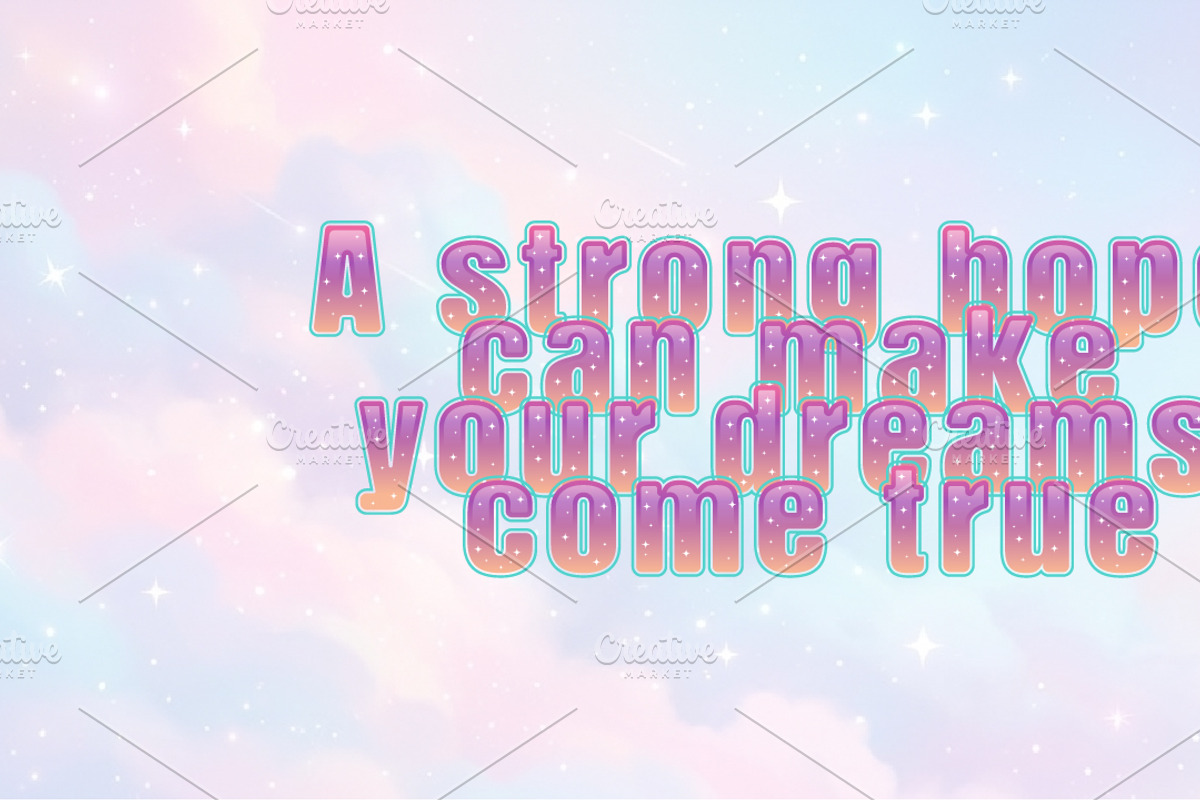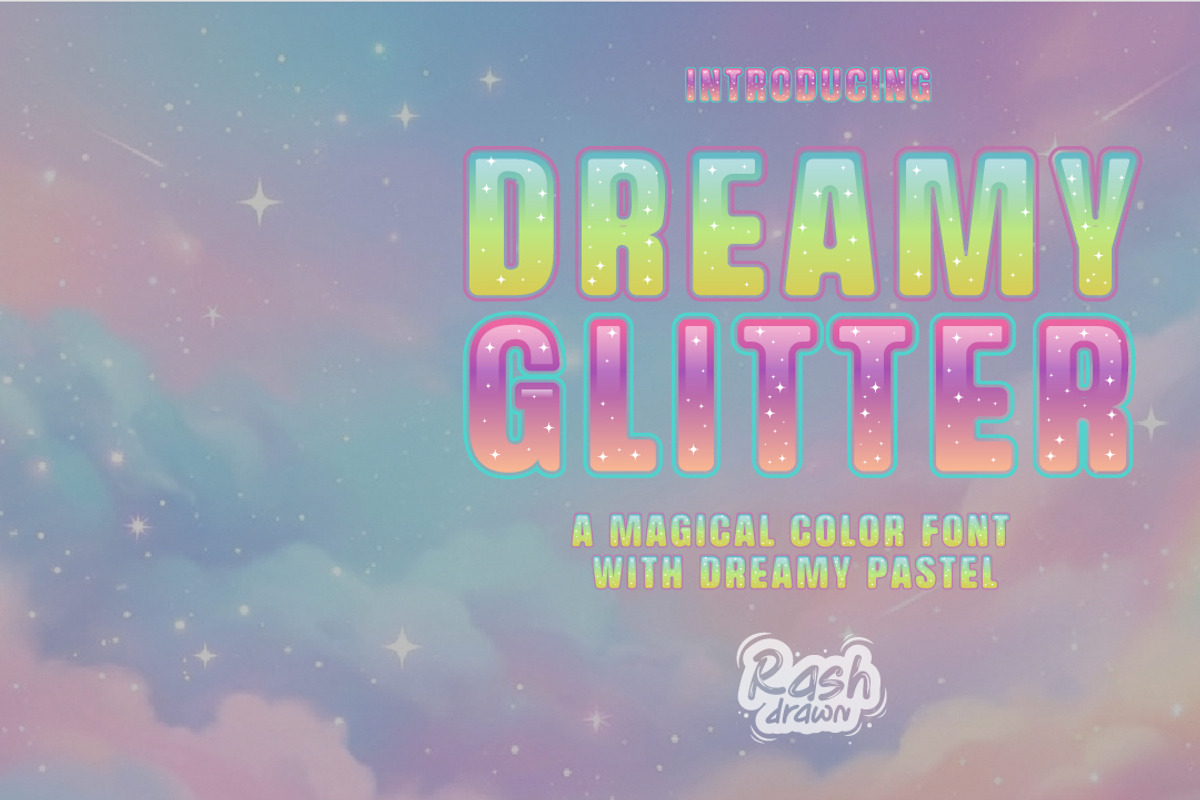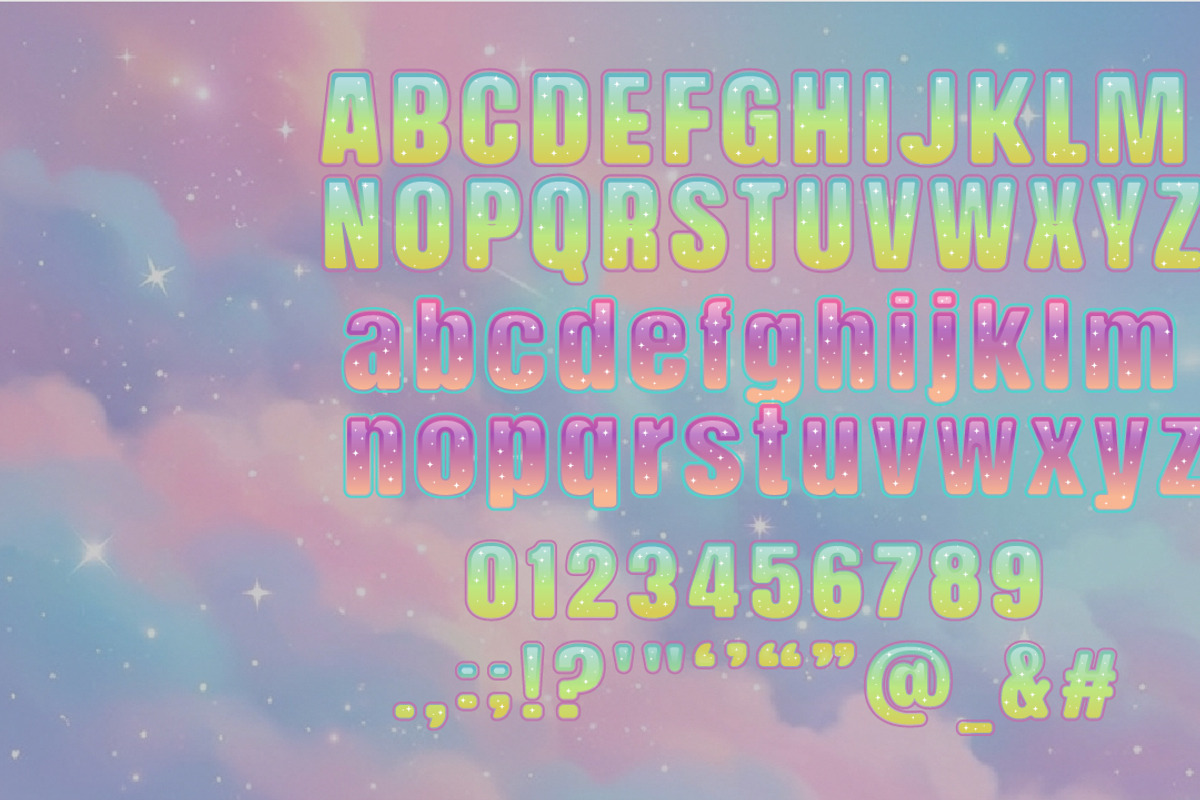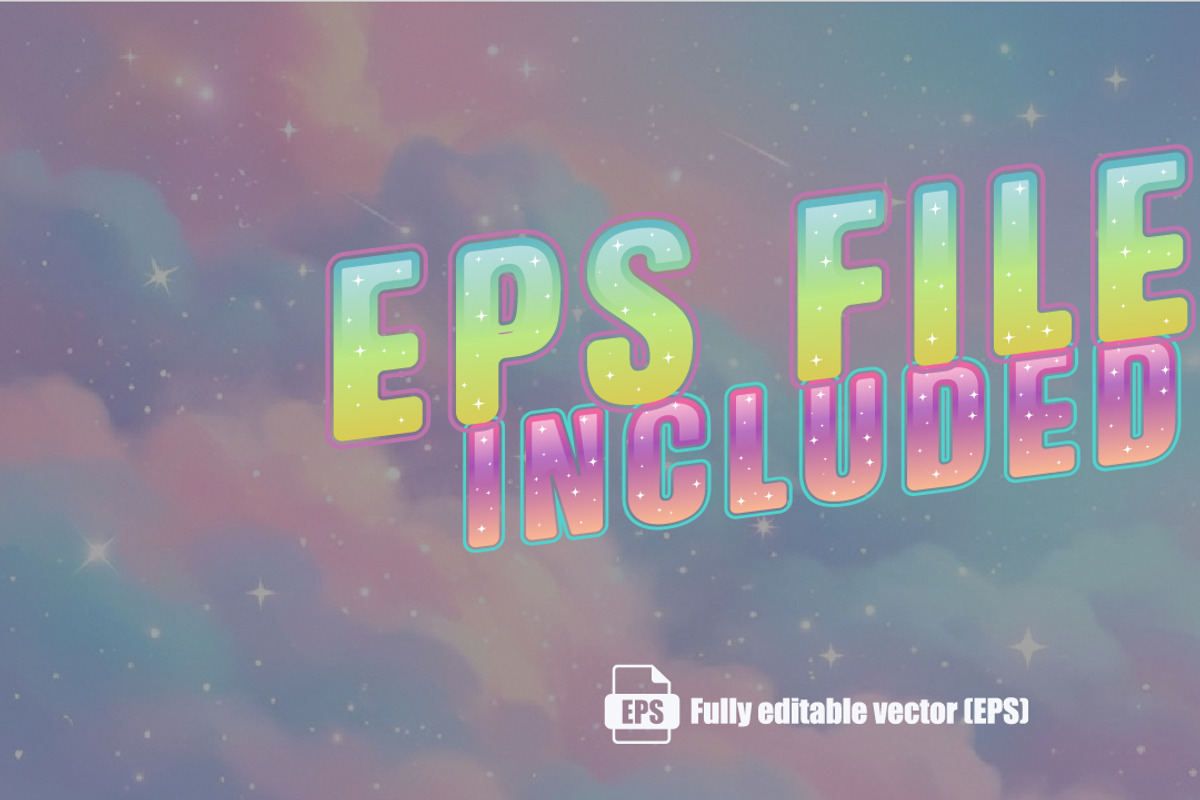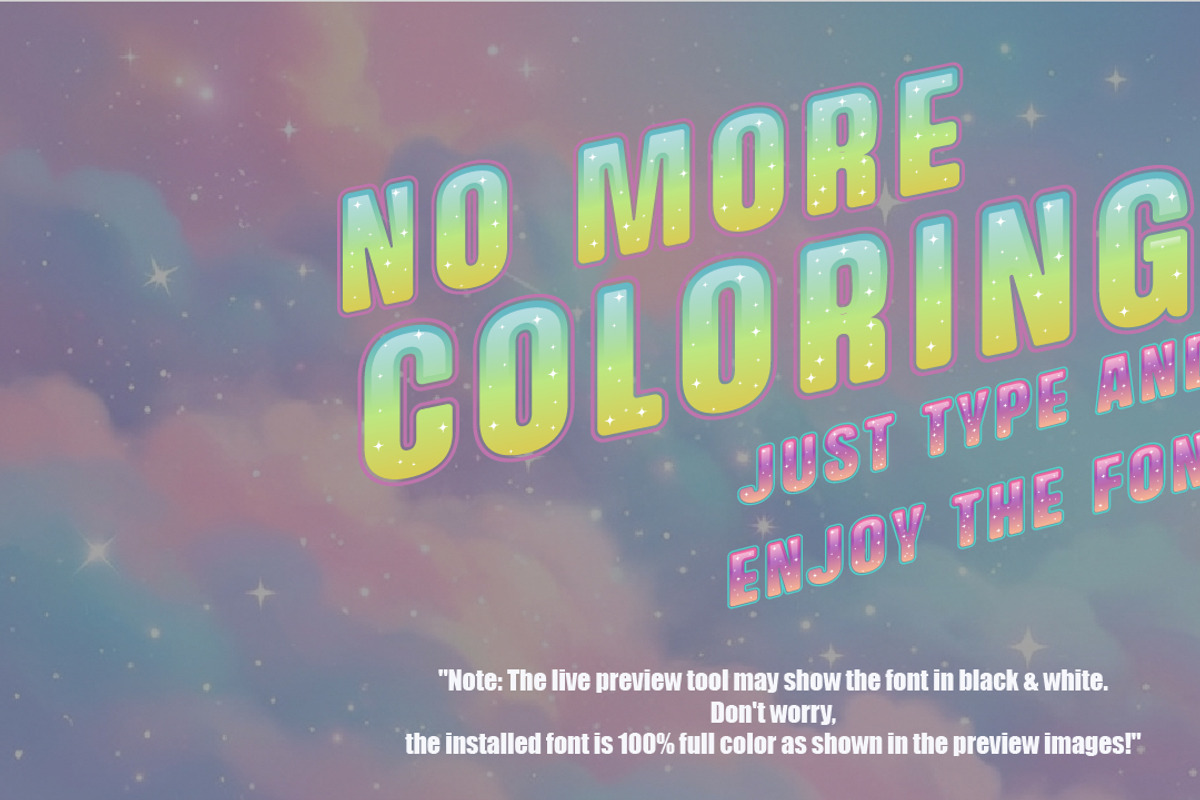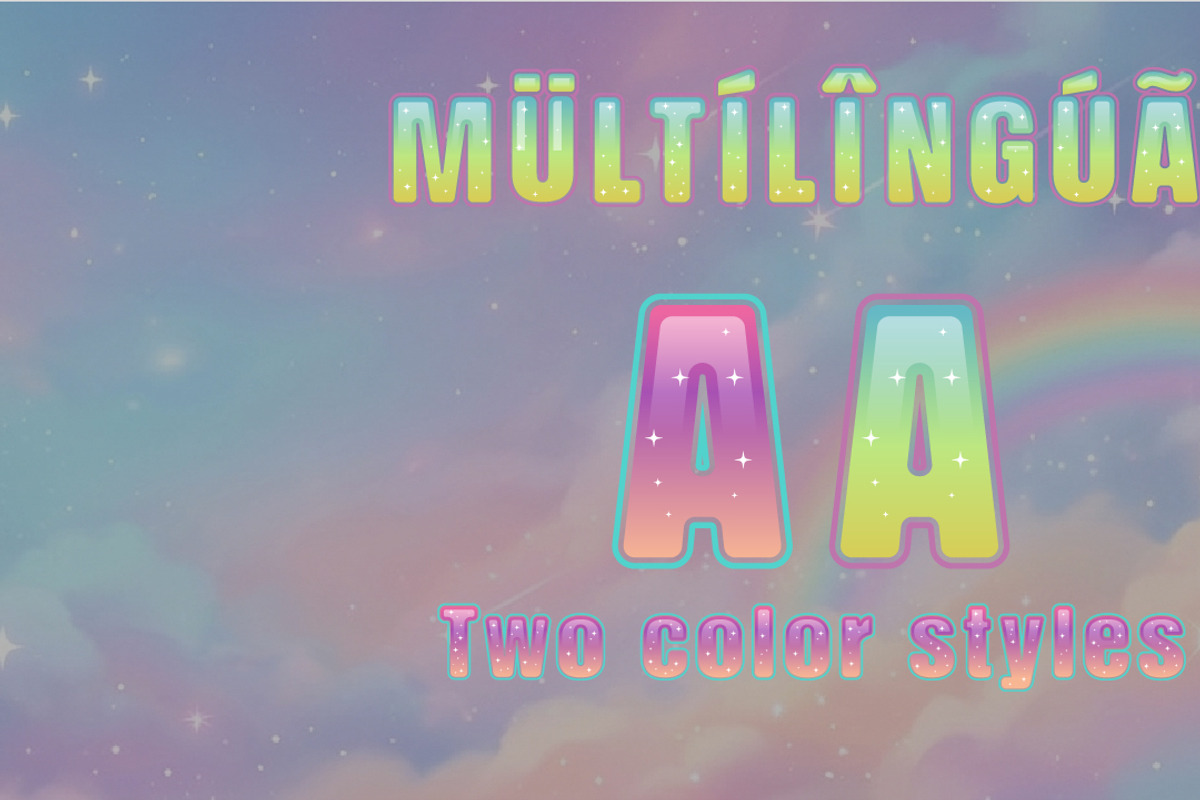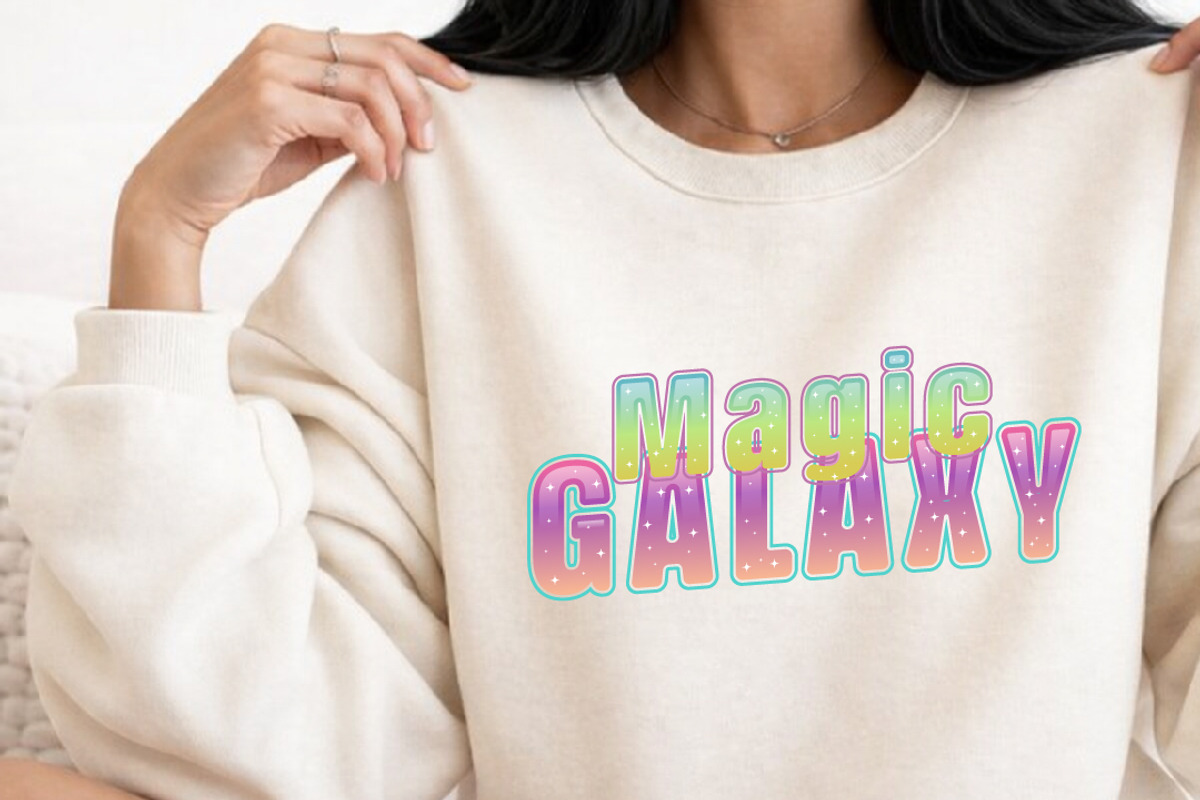
Dreamy glitter
Bring magic to your designs with Dreamy Glitter!
Dreamy Glitter is a premium OpenType-SVG color font featuring a stunning iridescent pastel gradient of pink, purple, and soft orange, accented with delicate magical sparkles. Crafted with precision through manual vector tracing, this font ensures clean lines and a professional finish for all your creative projects.
Perfect for kids' branding, birthday invitations, magical-themed posters, social media content, and dreamy product packaging. Whether you are designing for a candy shop or a fantasy storybook, Dreamy Glitter adds that instant "wow" factor without any extra coloring effort!
Multilingual Support: Includes accented characters for international designs.
Bonus Sparkles: Pre-decorated with magical glitter elements.